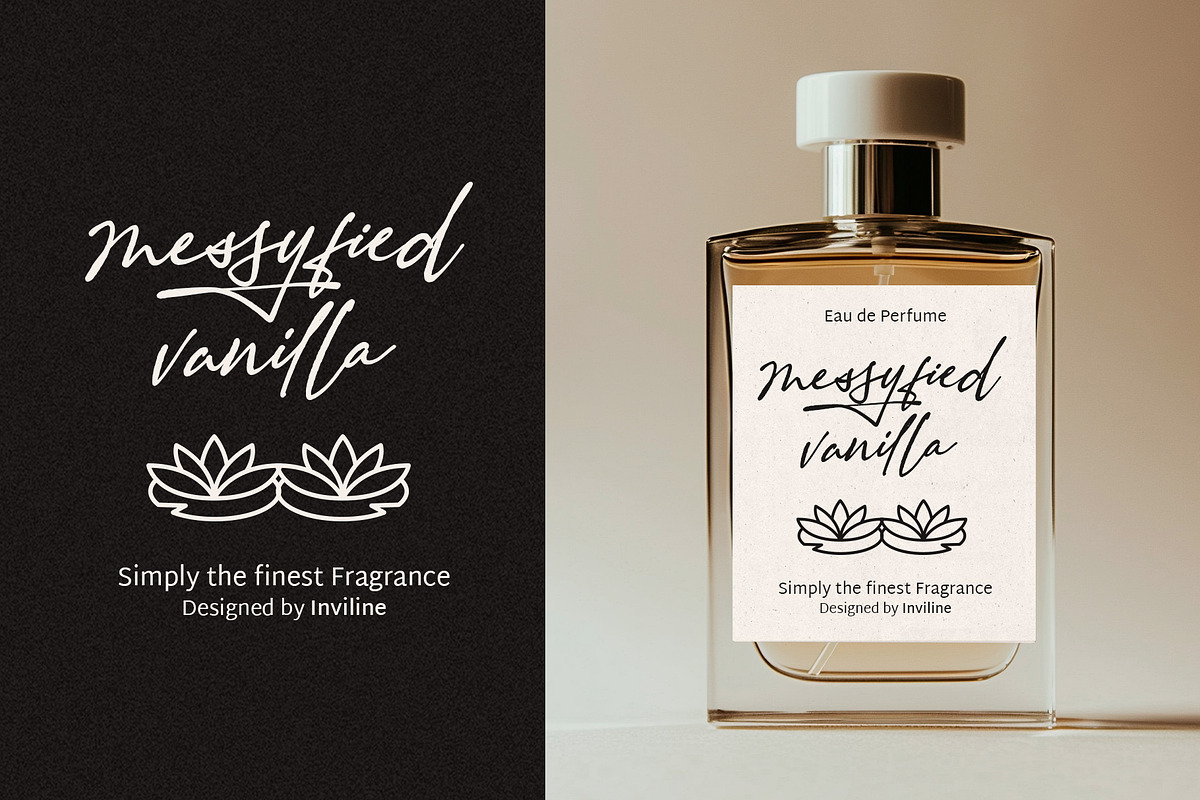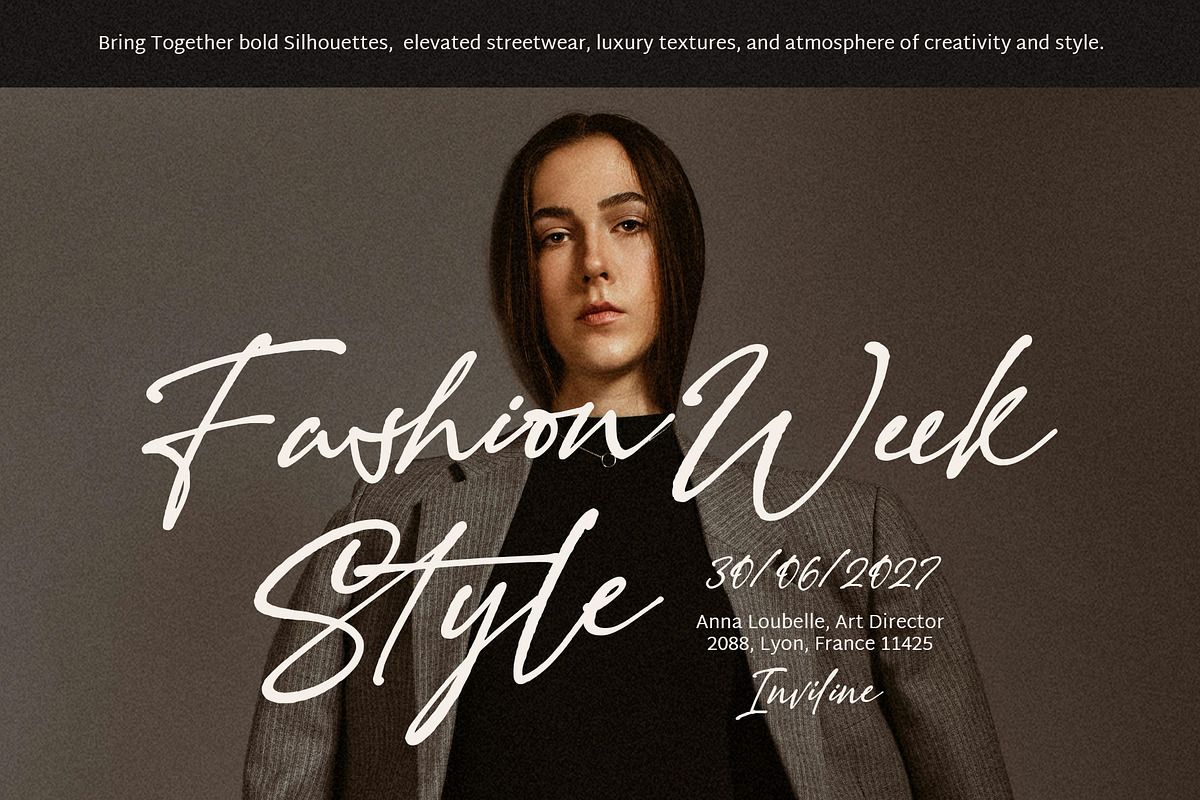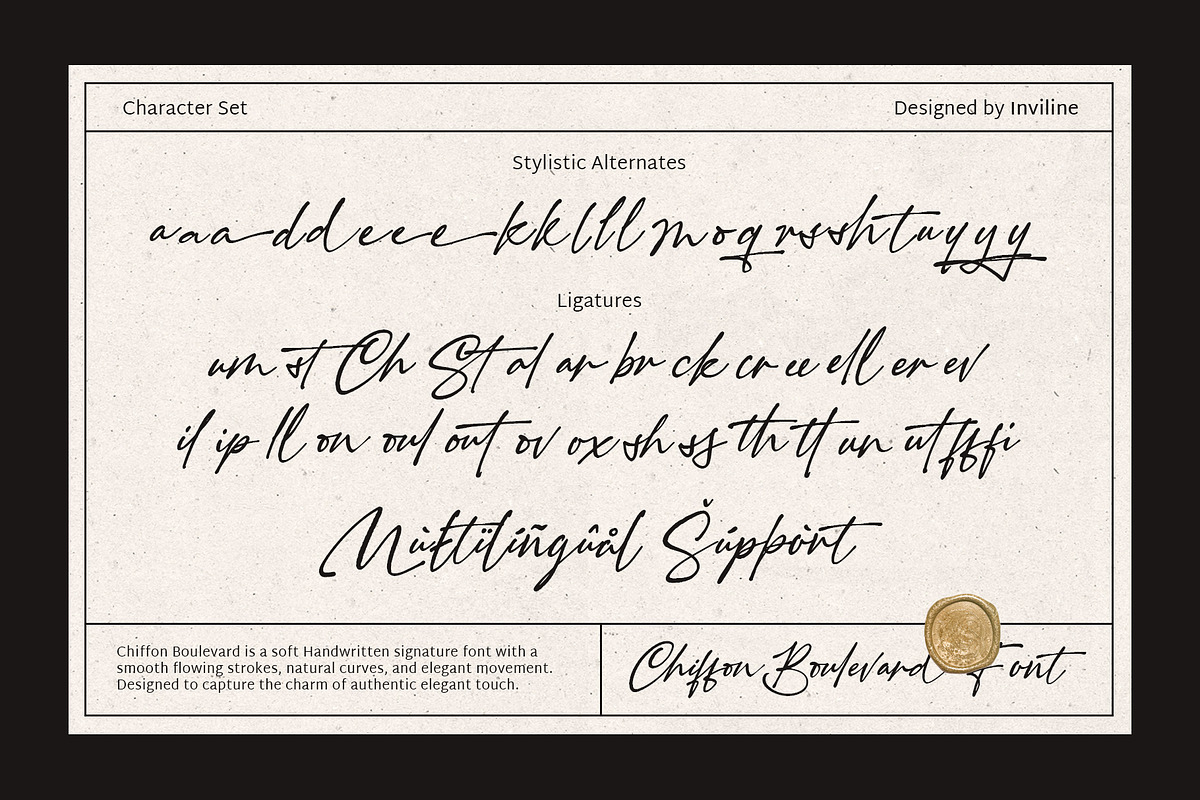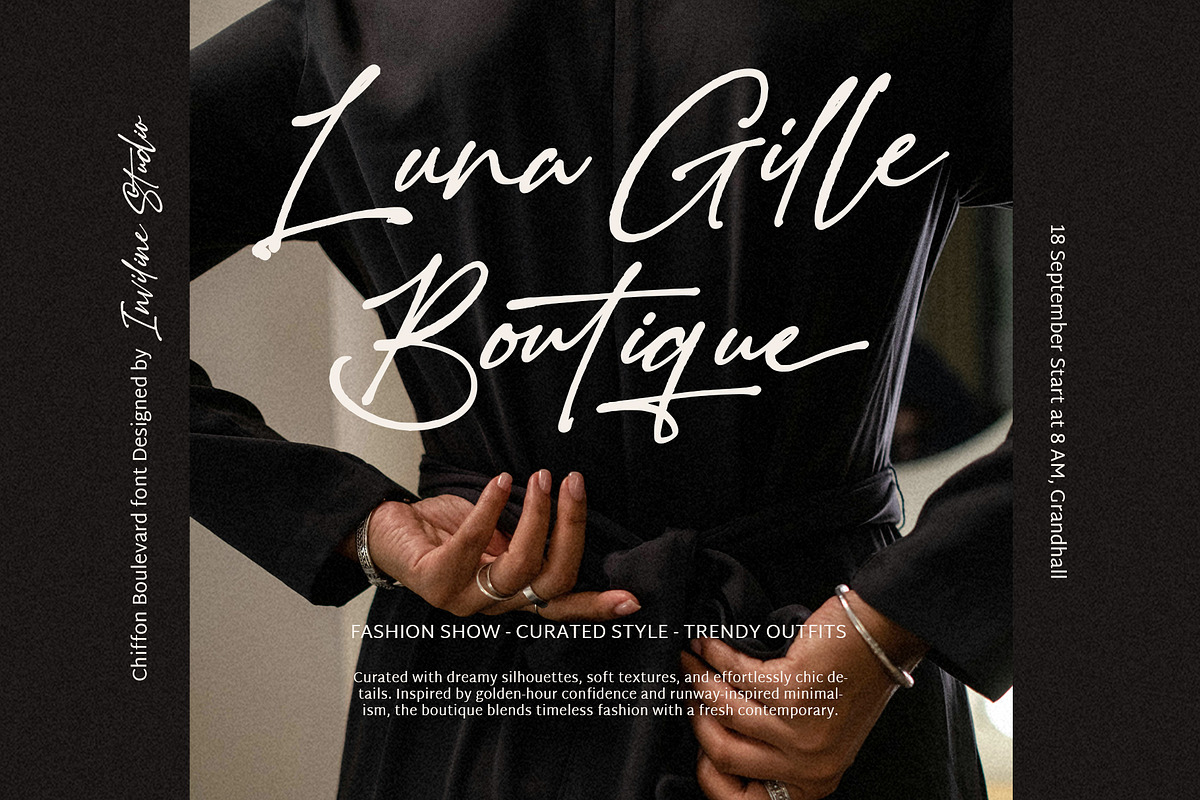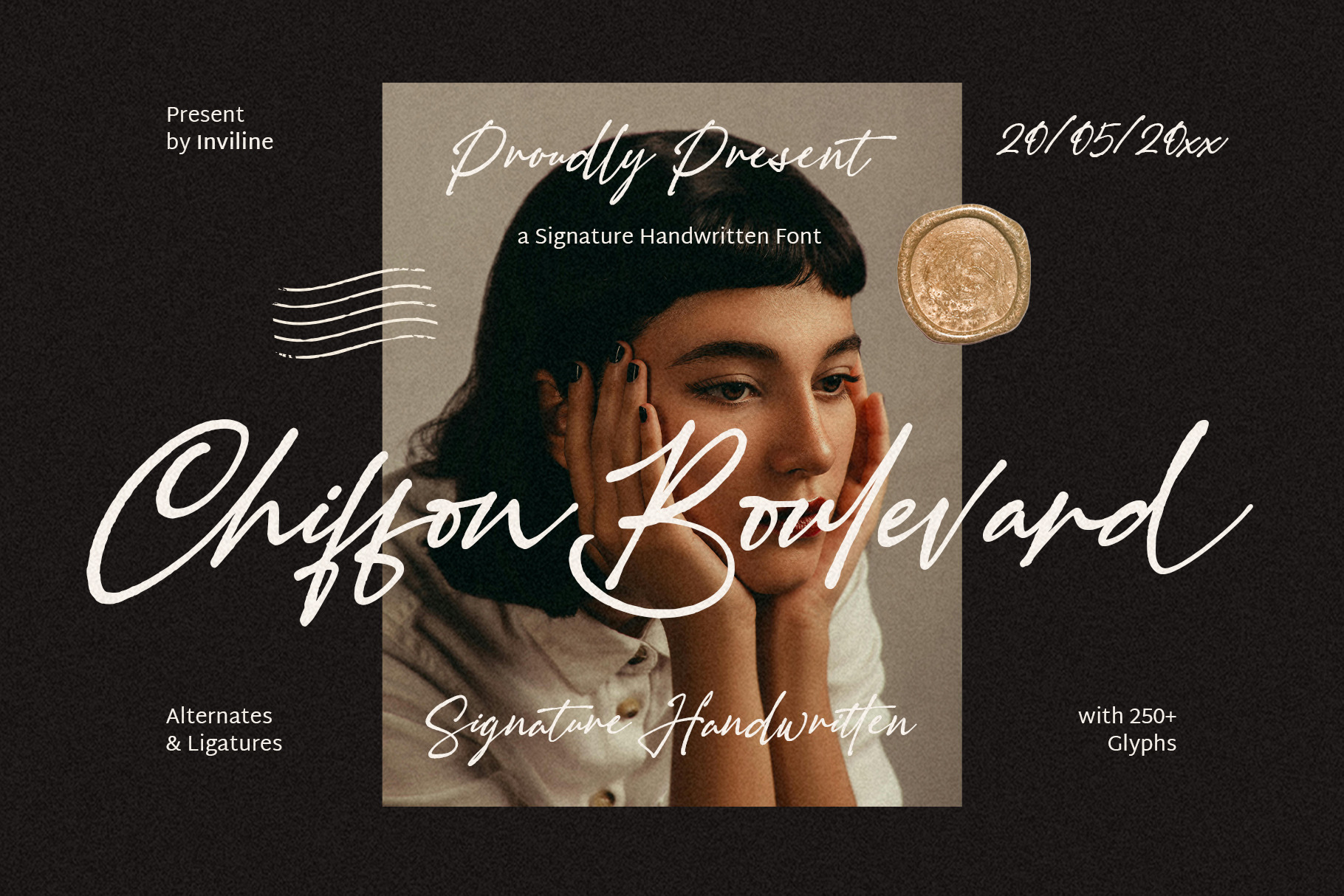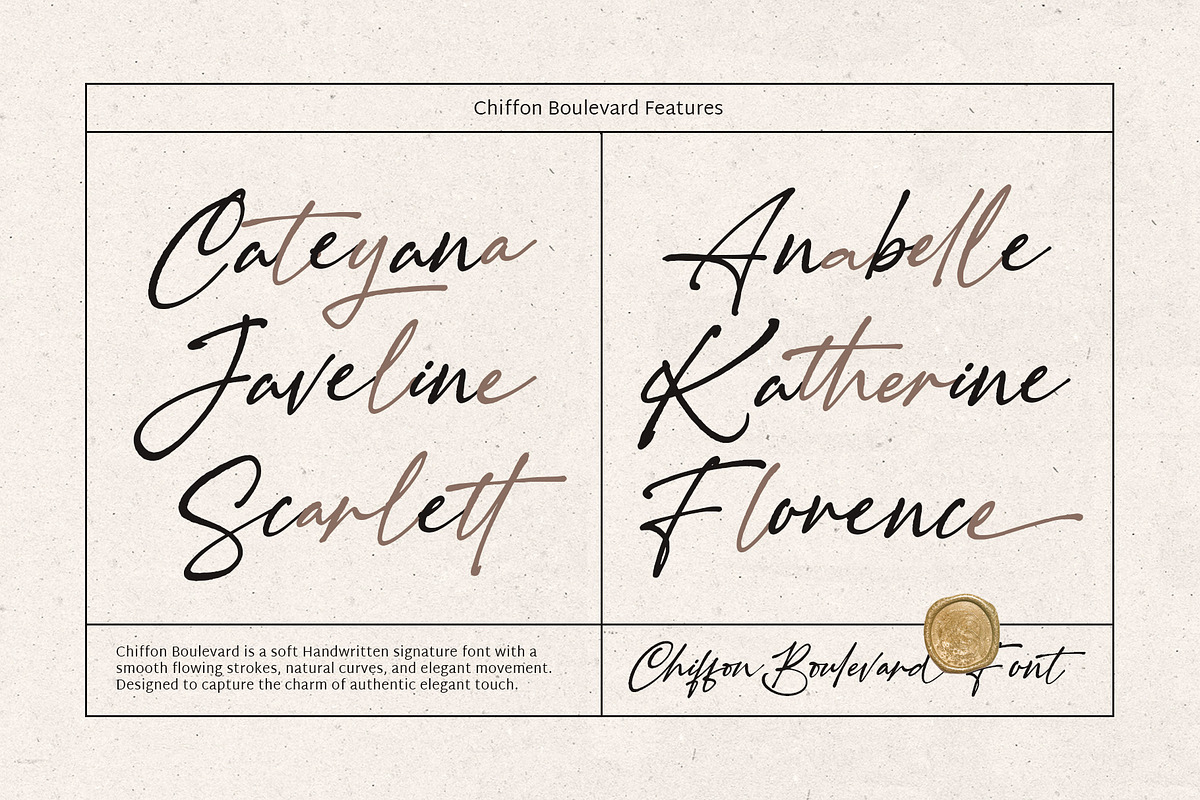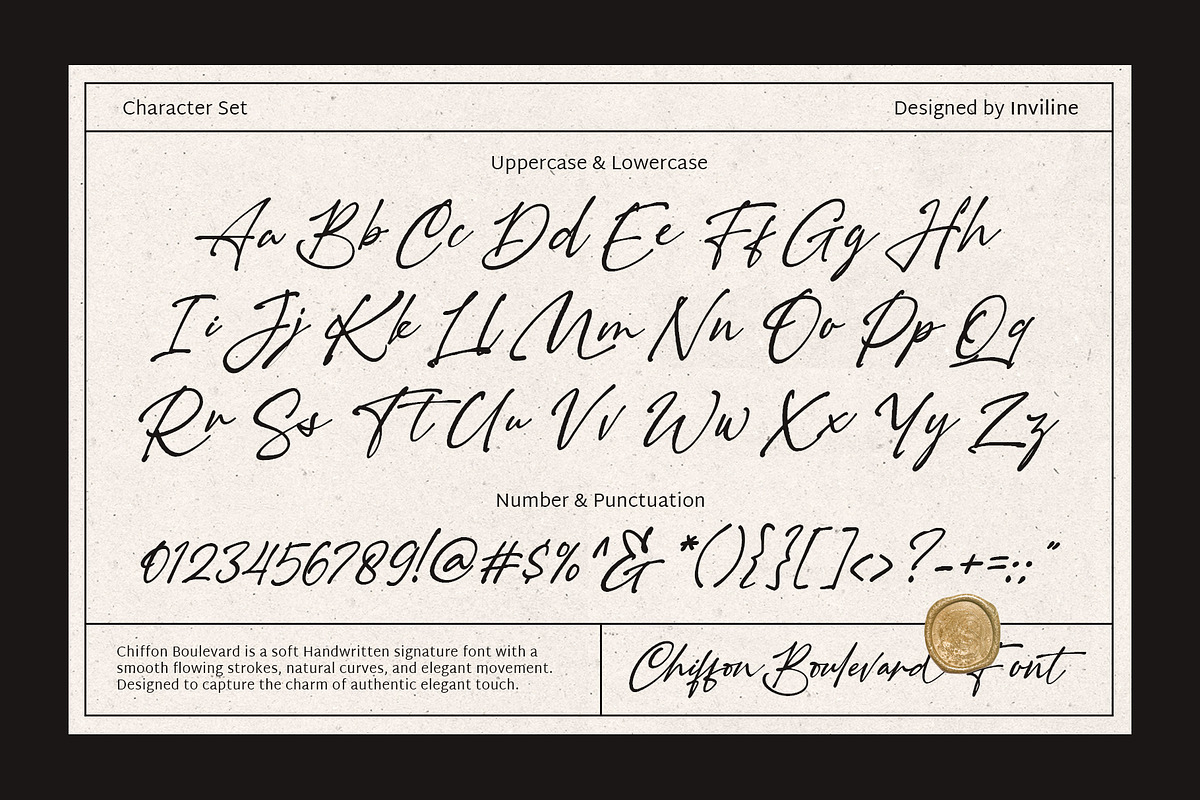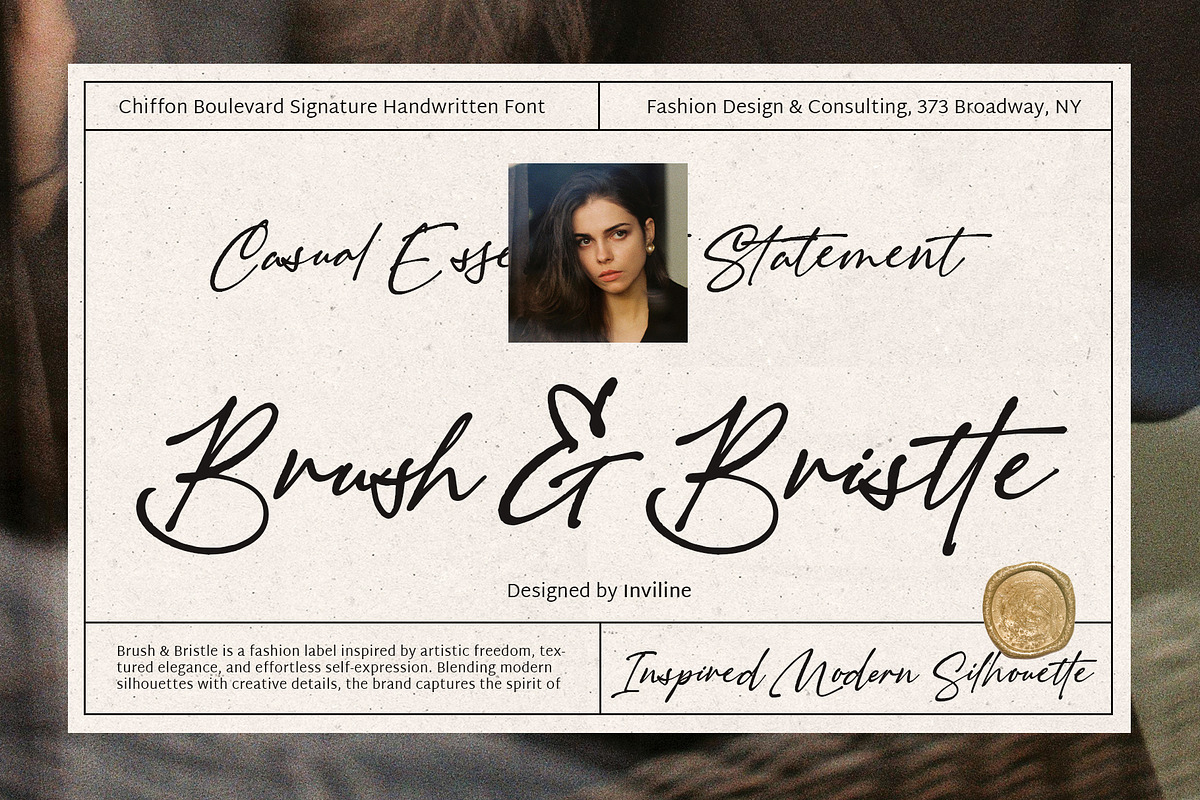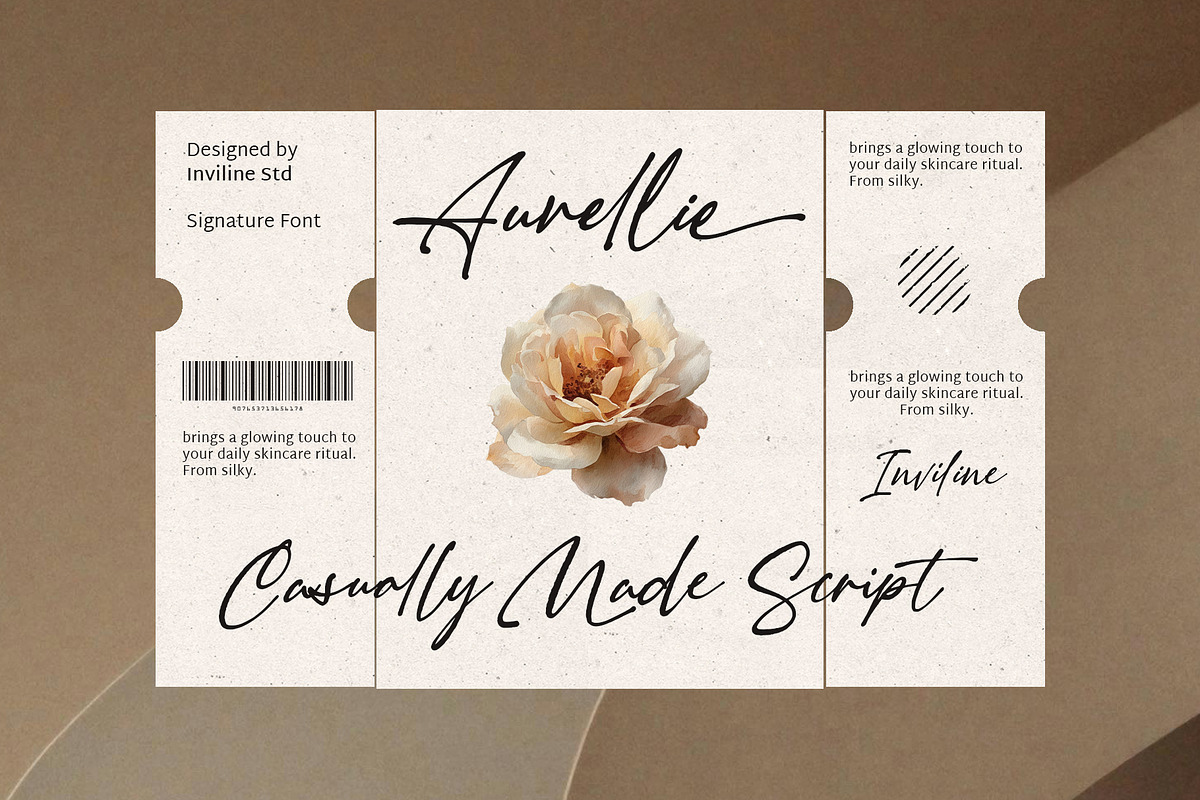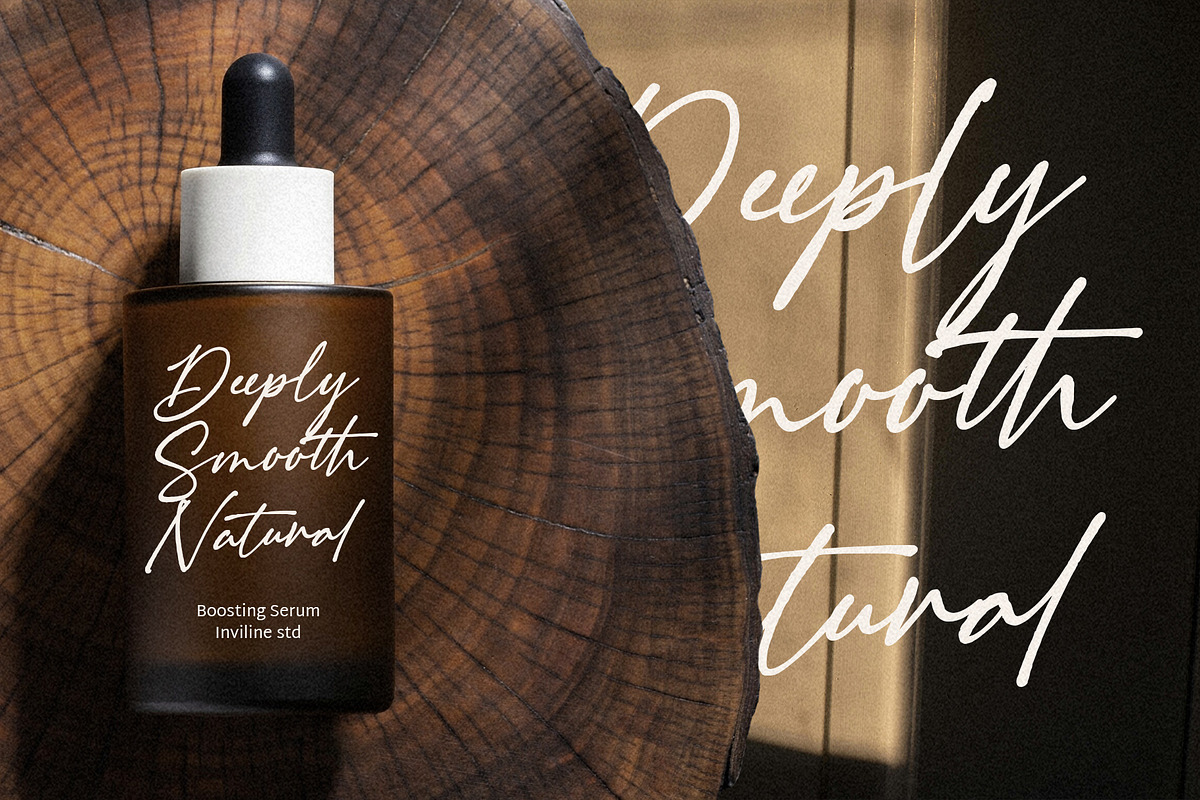
Chiffon Boulevard - Handwritten Font
Chiffon Boulevard — Elegant Signature Script Font
Chiffon Boulevard is an elegant signature script with graceful strokes, natural movement, and a refined handwritten character. Its flowing letterforms bring a personal yet polished touch to branding, stationery, and editorial designs.
Perfect for fashion, beauty, luxury branding, weddings, packaging, logos, and lifestyle projects.
Elegant signature script style
250+ glyphs
Flowing uppercase & lowercase
Stylistic alternates
Ligature support
Natural handwritten character
Great for logos, names & headlines
Ideal For
Luxury & fashion branding
Signature logos
Beauty & cosmetic branding
Wedding invitations
Boutique packaging
Photography watermarks
Editorial layouts
Perfume & jewelry branding
Design Tips
Use Chiffon Boulevard at medium to large sizes to showcase its elegant strokes and signature details. Pair it with a refined serif or clean sans serif for a sophisticated contrast.